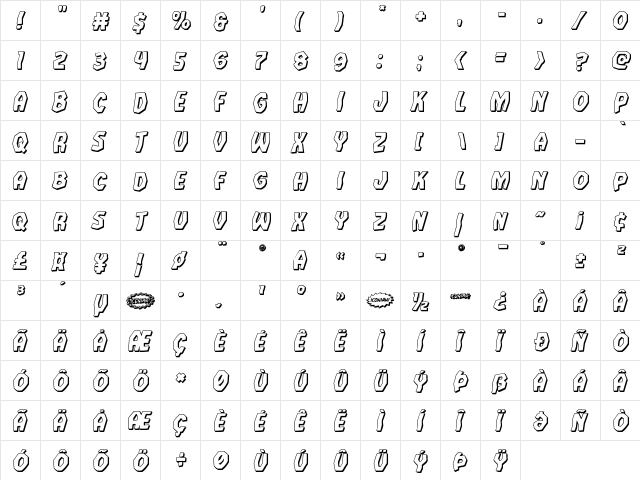
Vampire Bride Shadow Italic Regular Font Preview
Design Context for Vampire Bride Shadow Italic Typeface
Vampire Bride Shadow Italic is built around its visual character rather than neutral utility — its distinctive forms are designed to make an impression at display sizes. The dynamic lean of this cut emphasises speed and emphasis in any layout.
Font Pairing: Pair with a clean neutral sans-serif for body copy to let Vampire Bride Shadow Italic's character lead without overwhelming the composition.
Pro Tip: Treat Vampire Bride Shadow Italic as the centrepiece of your typographic hierarchy. One strong heading set in a decorative face can carry an entire layout.